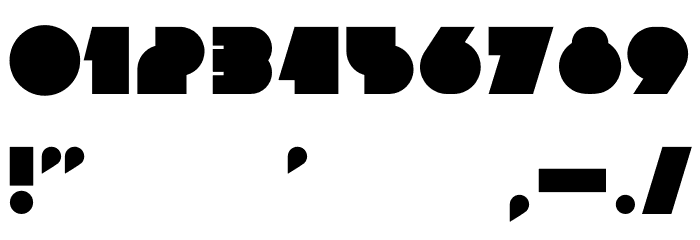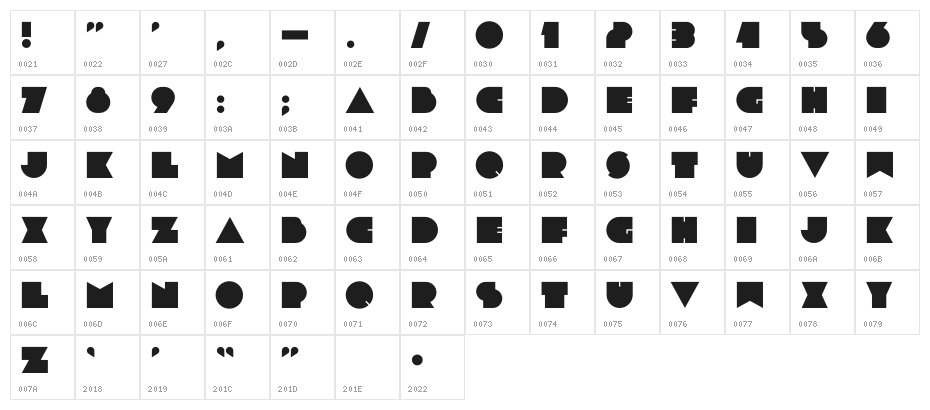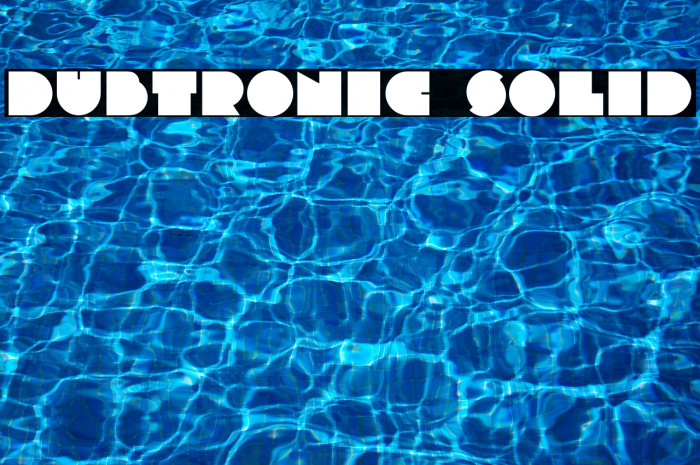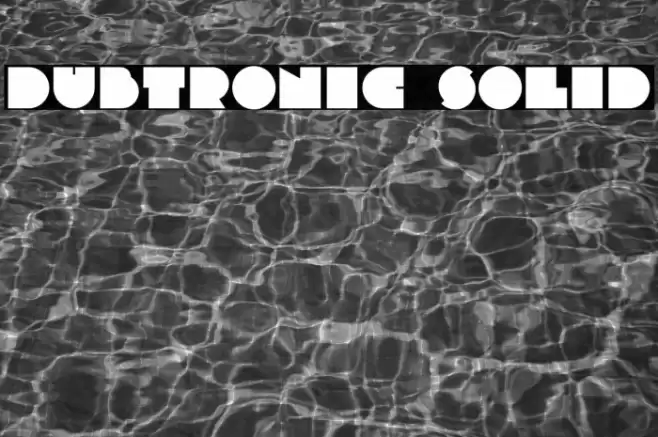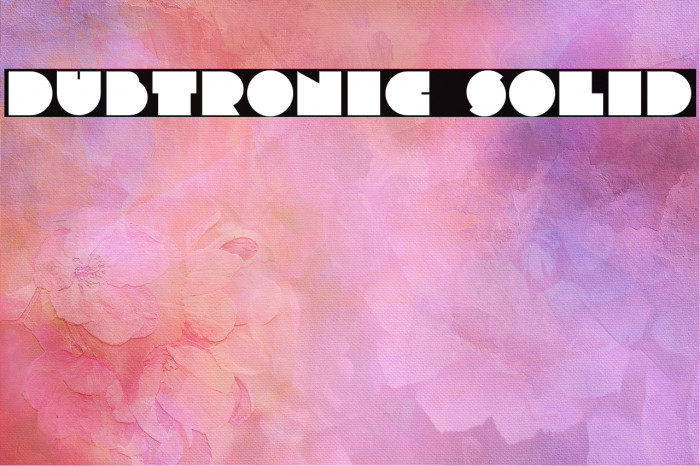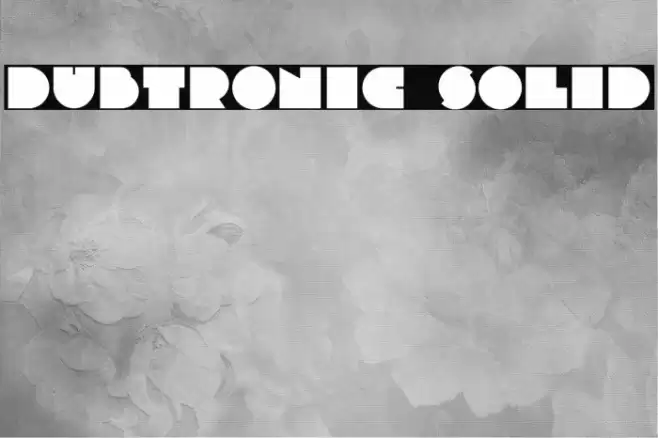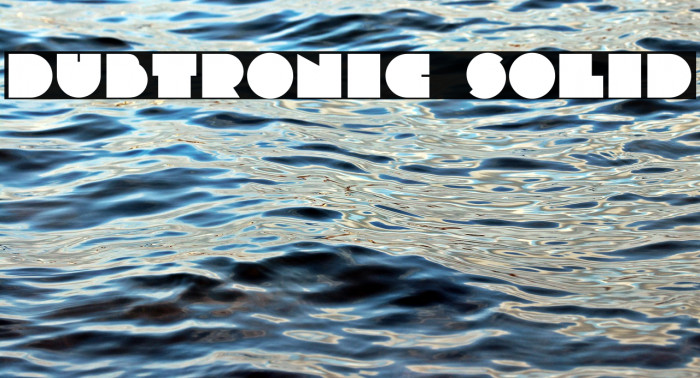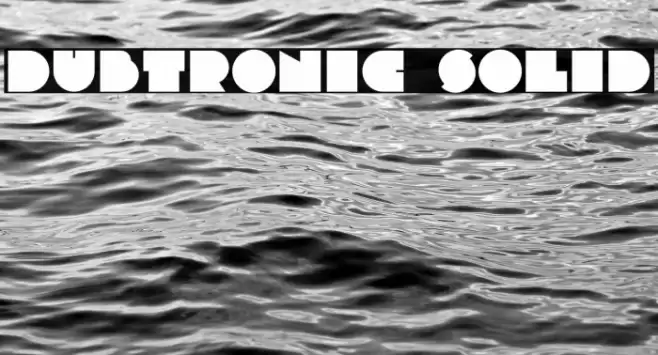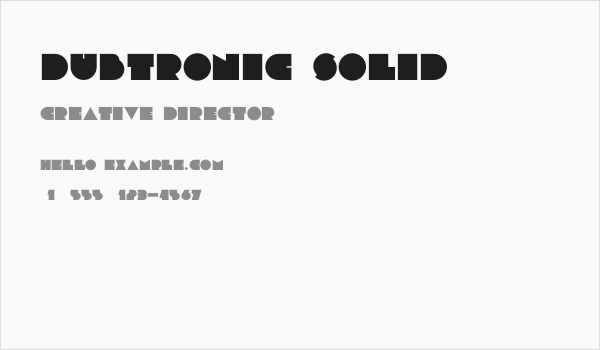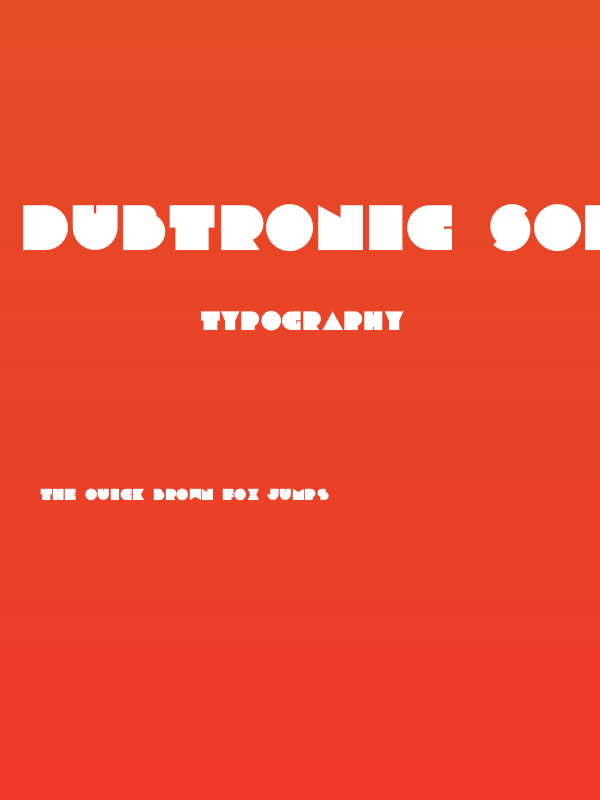
Dubtronic Solid Font
Dubtronic Solid Description
This font features a bold and geometric design, characterized by its solid, block-like letterforms. The characters are constructed with sharp angles and straight lines, creating a futuristic and modern appearance. The uppercase and lowercase letters maintain a consistent style, with a uniform thickness throughout each character. The numbers and special characters follow the same design principles, ensuring a cohesive look across all glyphs. The font's strong presence makes it ideal for attention-grabbing designs.
| Proposed Projects | Ideal for posters, logos, branding, and any project requiring a strong visual impact. |